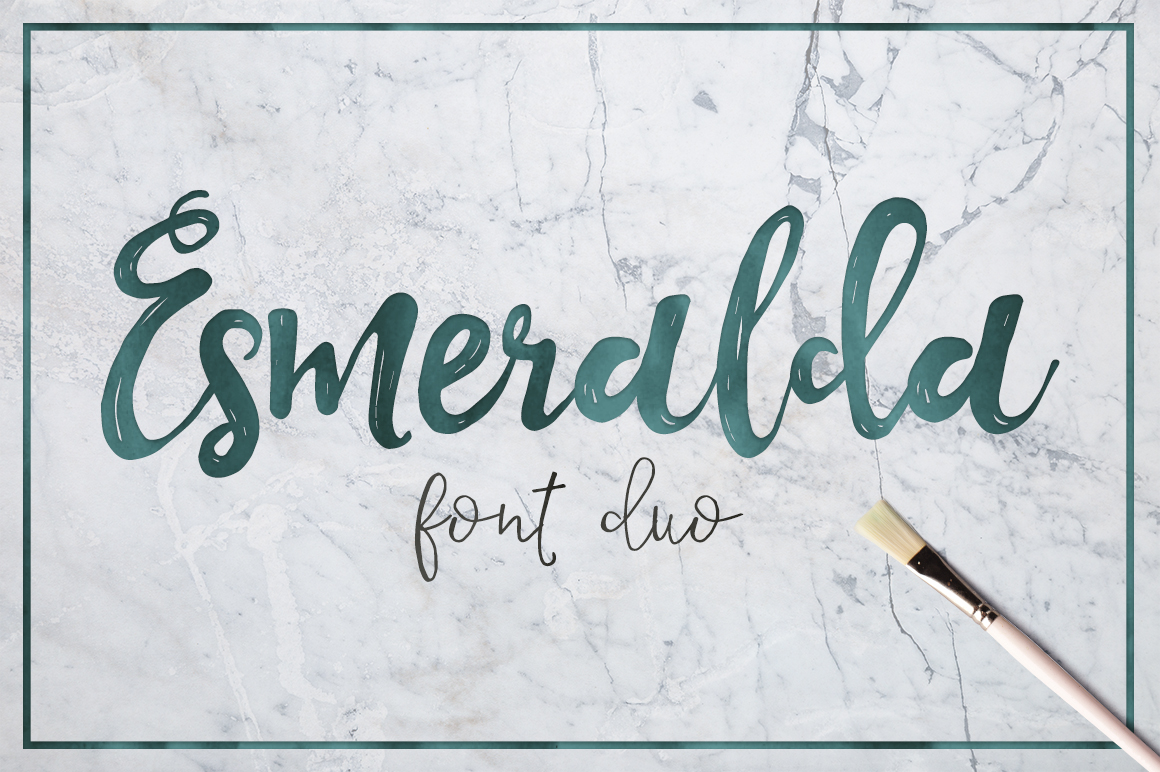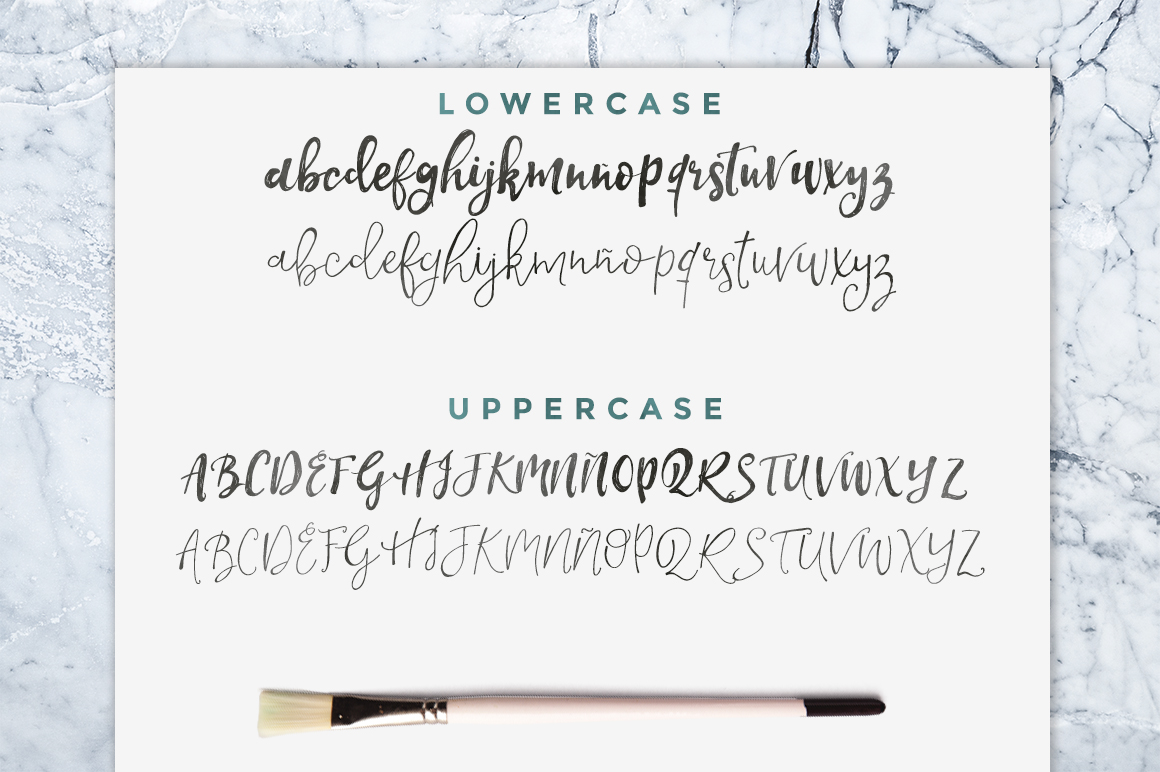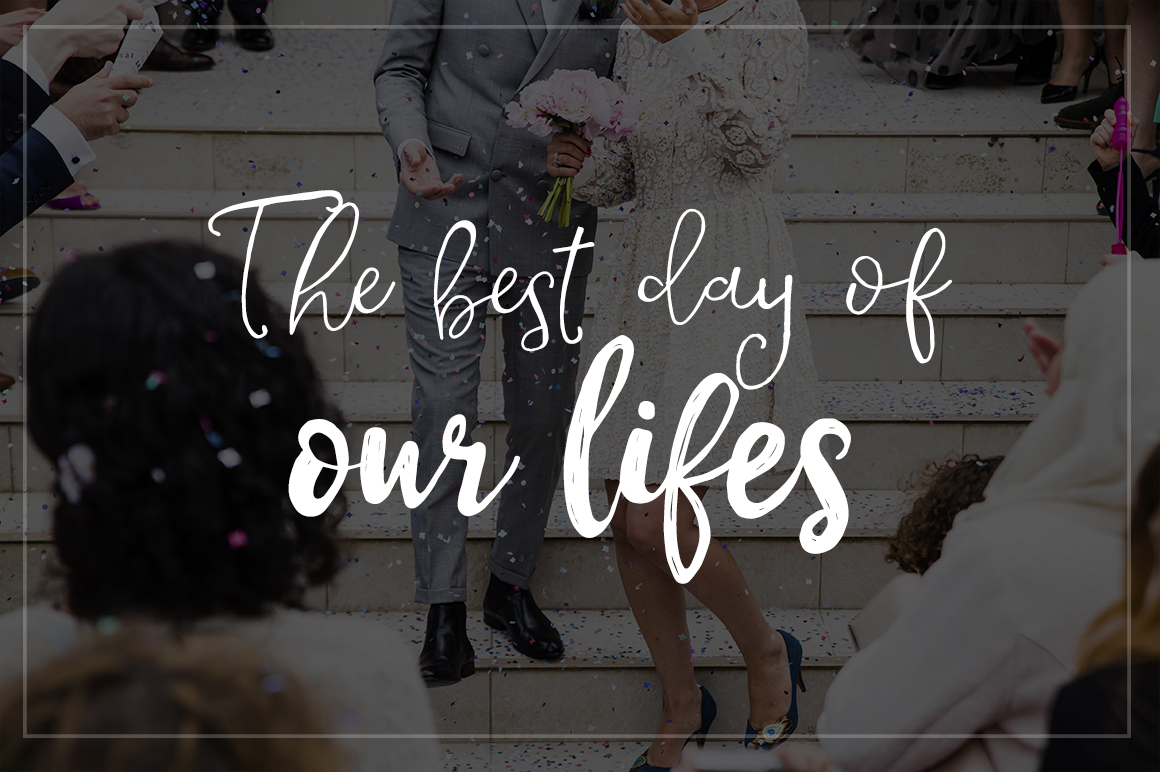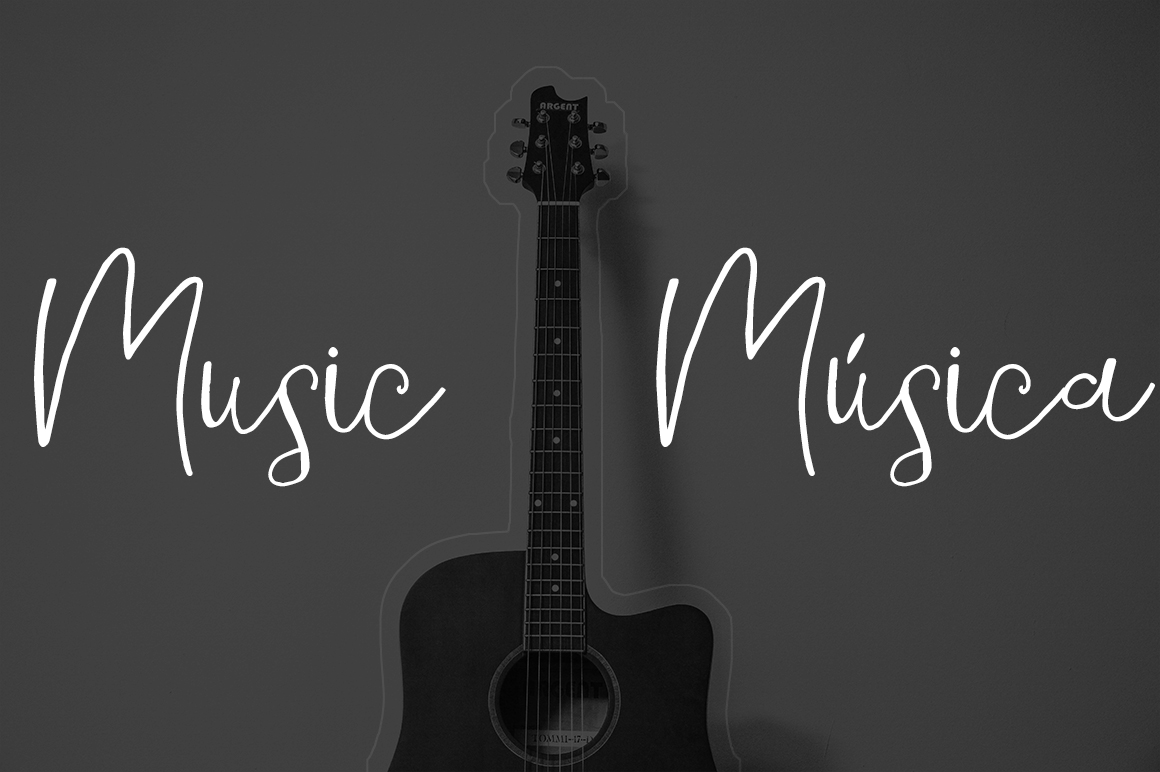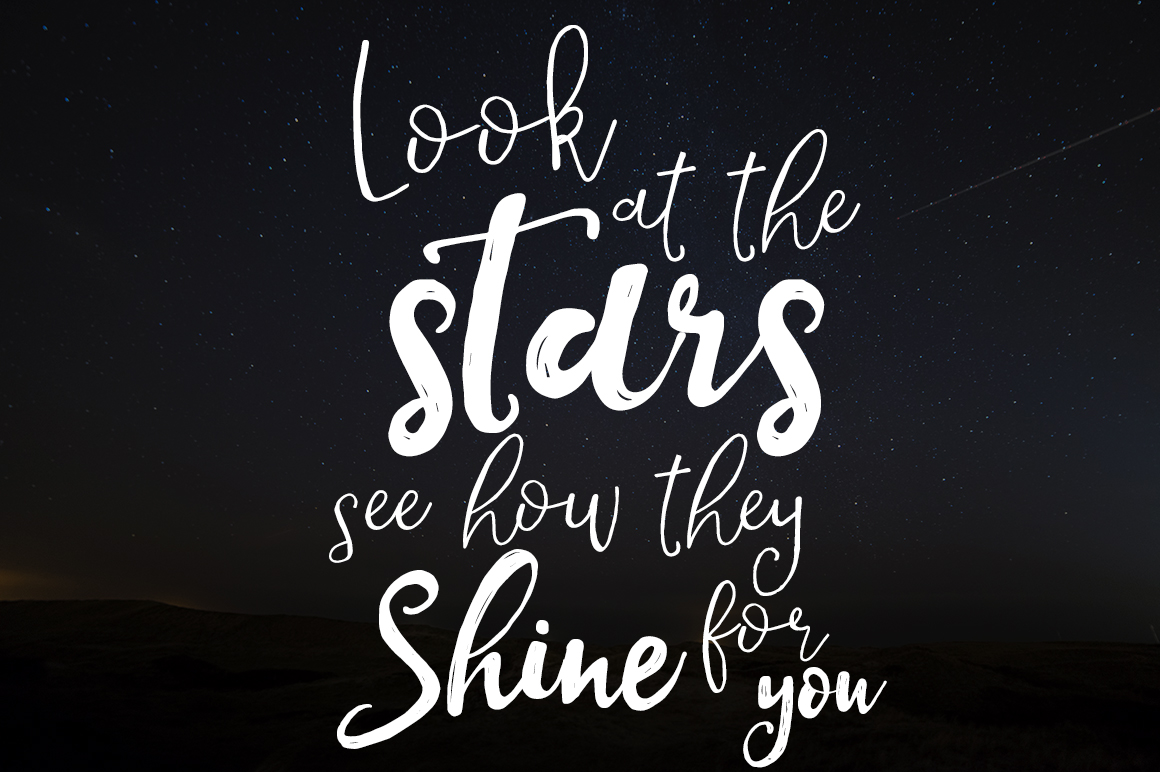
Esmeralda Font
About Esmeralda Font
Esmeralda is a handmade font duo that comes with Esmeralda (Regular) and Esmeralda Thin.
It’s completely made by hand and the bold and thin version are great for combining. The soft, elegant & feminine touch make this the perfect font for many projects.